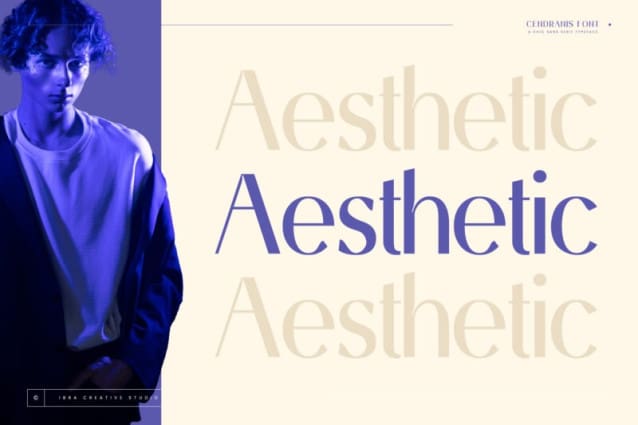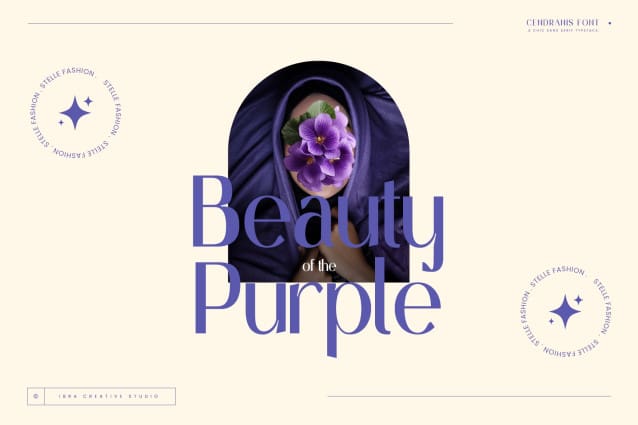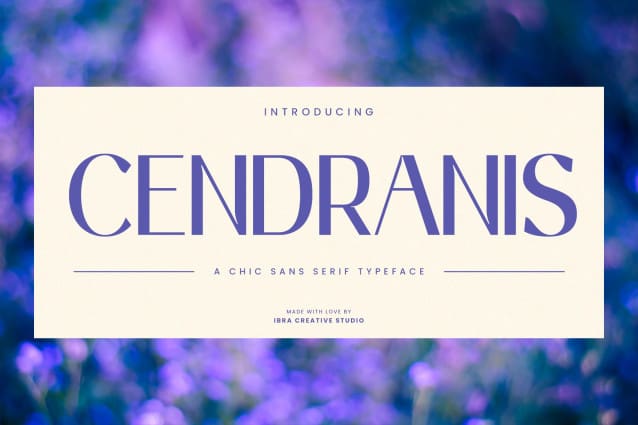
Cendranis Font
Cendranis Font, a chic sans-serif typeface, exudes modernity and sophistication with its clean lines and minimalist aesthetic. The simplicity of each letterform is meticulously balanced, creating a harmonious blend of elegance and contemporary style. Whether used for branding, editorial design, or digital applications, Cendranis adds a touch of refinement to any project, embodying a timeless chicness that seamlessly adapts to the evolving design landscape. Its sleek, versatile nature makes it an ideal choice for those seeking a typeface that effortlessly bridges the gap between classic and contemporary design.
Cendranis Font is perfect for branding projects, logo, wedding designs, social media posts, advertisements, product packaging, product designs, label, photography, watermark, invitation, stationery, game, fashion and any projects.